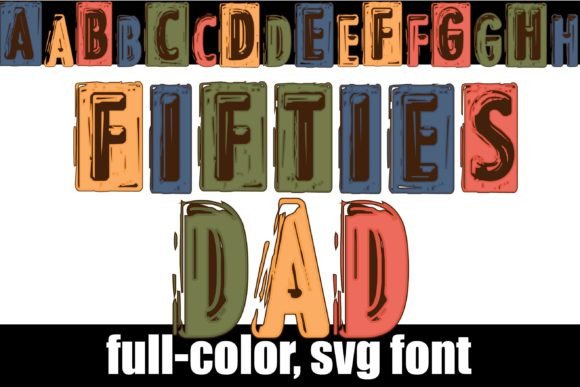
Dive into the groovy realm of the Fifties Dad Font, a full-color masterpiece crafted by Illustration Ink. This blocky sans serif font bursts with a retro charm, reminiscent of the vibrant and carefree era that was the 1950s. Unleash your creativity and make your designs pop with this captivating font, perfect for adding a touch of nostalgia and fun to your projects.
Express your individuality and stand out from the crowd with the Fifties Dad Font. Its unique block-style lettering, resembling punched-out tin, adds a playful and edgy touch to your designs. Whether you're creating eye-catching logos, playful invitations, or quirky social media posts, the Fifties Dad Font will make your words dance off the page.
Unlock a world of color with the Fifties Dad Font. Dive into the depths of this font's enchanting palette, featuring a spectrum of hues that will bring your designs to life. The additional colors accessible through your system's character map provide endless possibilities for customization. Let your imagination soar and create designs that burst with vibrancy and personality.